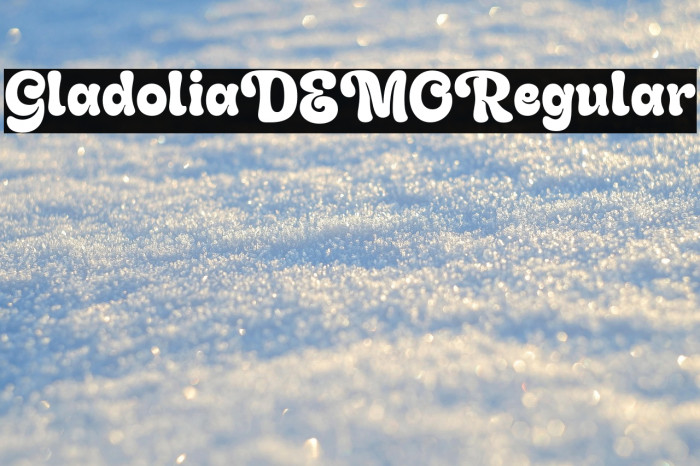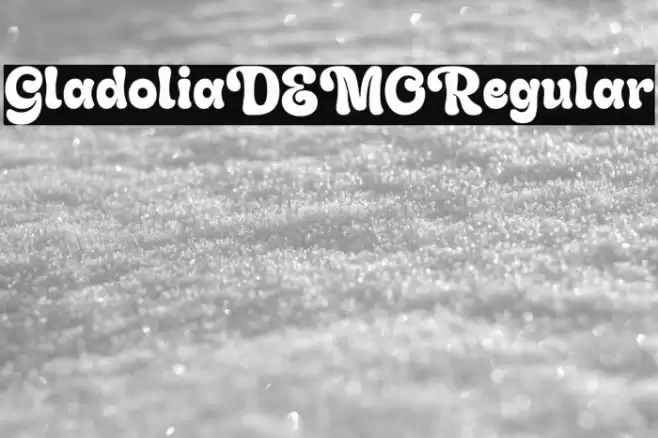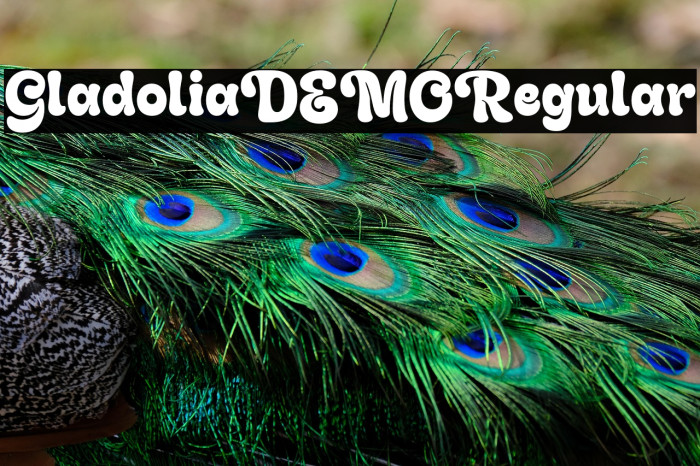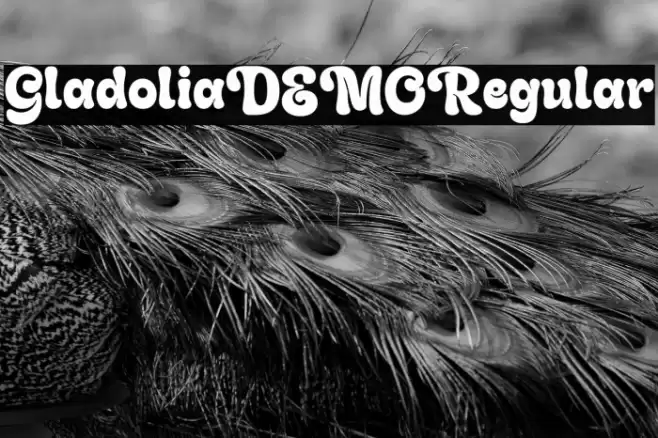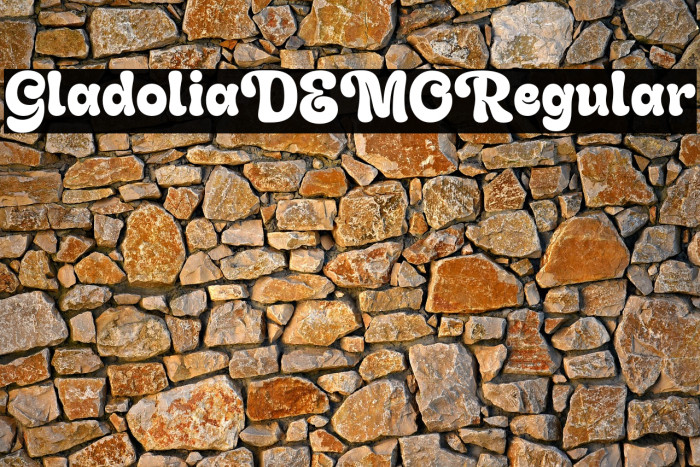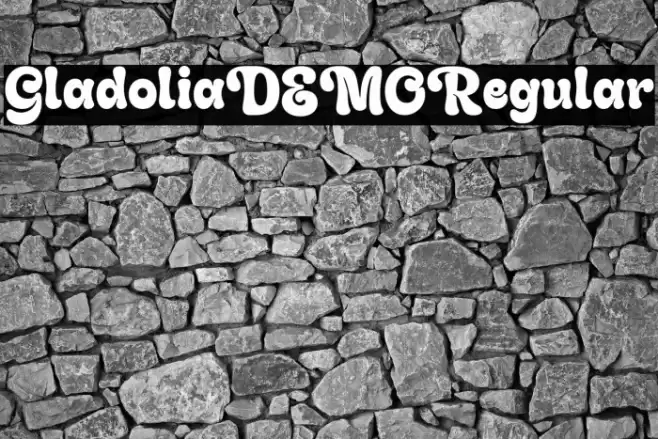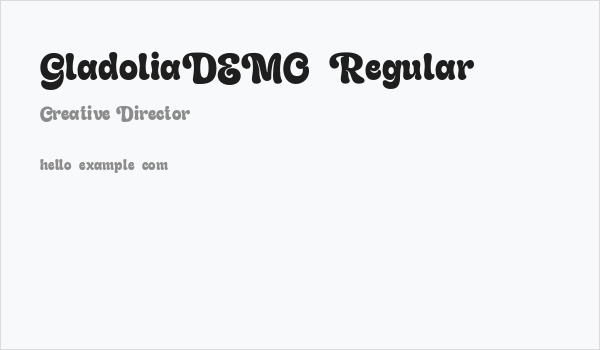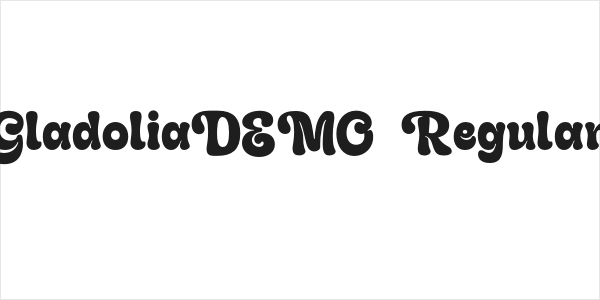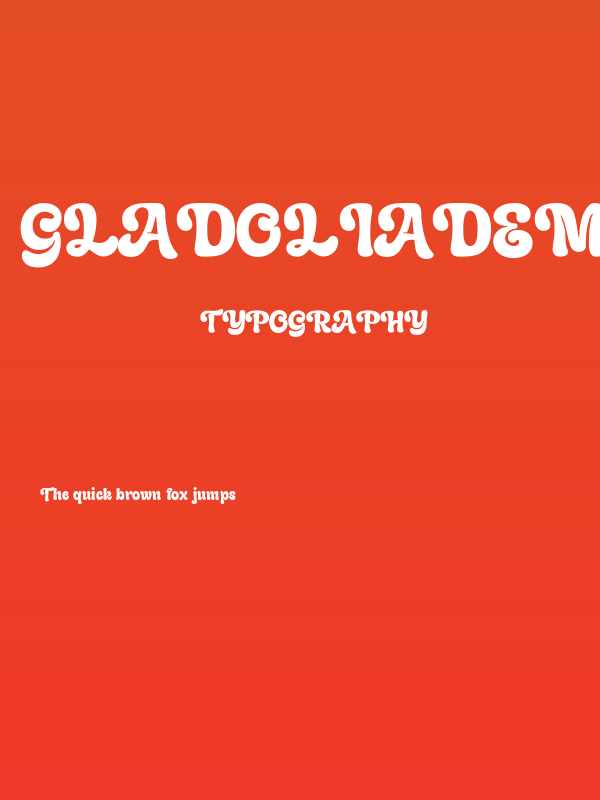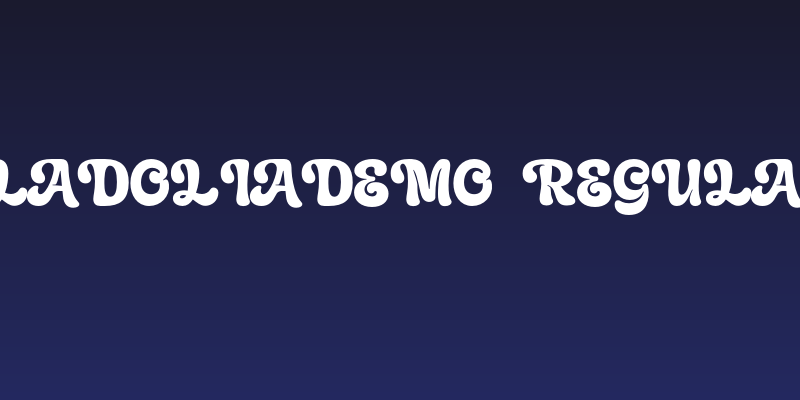
GladoliaDEMO-Regular Font
GladoliaDEMO-Regular Description
This font features a bold and playful design with thick, rounded strokes that give it a whimsical and friendly appearance. The characters are well-defined with a consistent weight throughout, creating a cohesive look. The uppercase and lowercase letters maintain a uniform style, with slight variations that add character and charm. The numbers and special characters are equally bold, ensuring readability and visual impact. This font's unique style makes it stand out, making it ideal for creative and fun projects.
Overall StylePlayful, Whimsical
Proposed ProjectsIdeal for children's books, playful branding, posters, and creative designs.